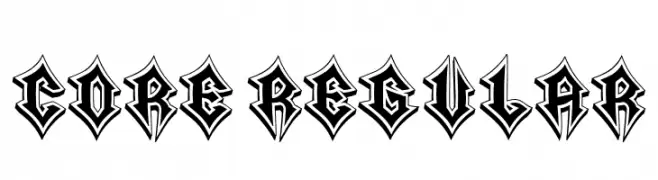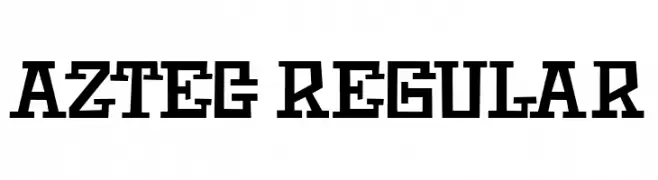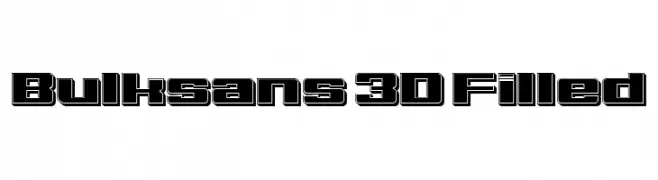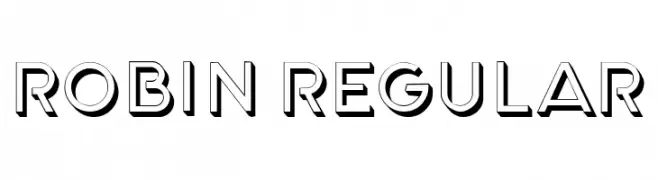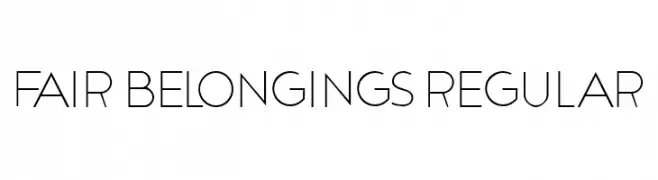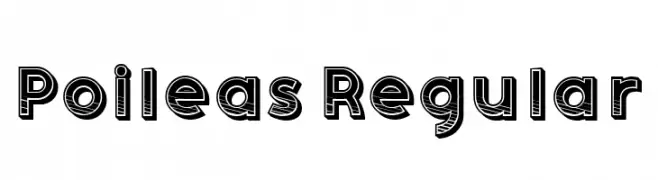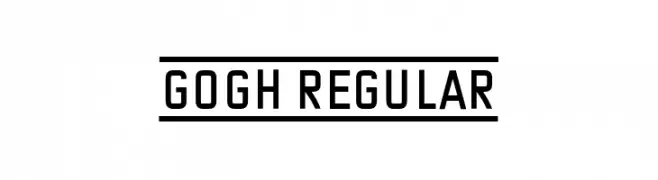
A bold, Gothic-inspired font with sharp, angular lines and dramatic styling.
A bold, geometric font with angular, tribal-inspired elements.
A bold, 3D geometric font with a modern, industrial style.
A bold, 3D geometric font with outlined characters and a modern style.
A bold, geometric font with a modern and industrial aesthetic.
A bold, modern font with a 3D shadow effect and geometric design.
A modern, geometric sans-serif font with clean lines and a sleek appearance.
A bold, decorative font with a unique striped pattern and geometric shapes.
A bold, geometric font with a modern outline style.
A modern, geometric font with clean lines and uniform stroke width.